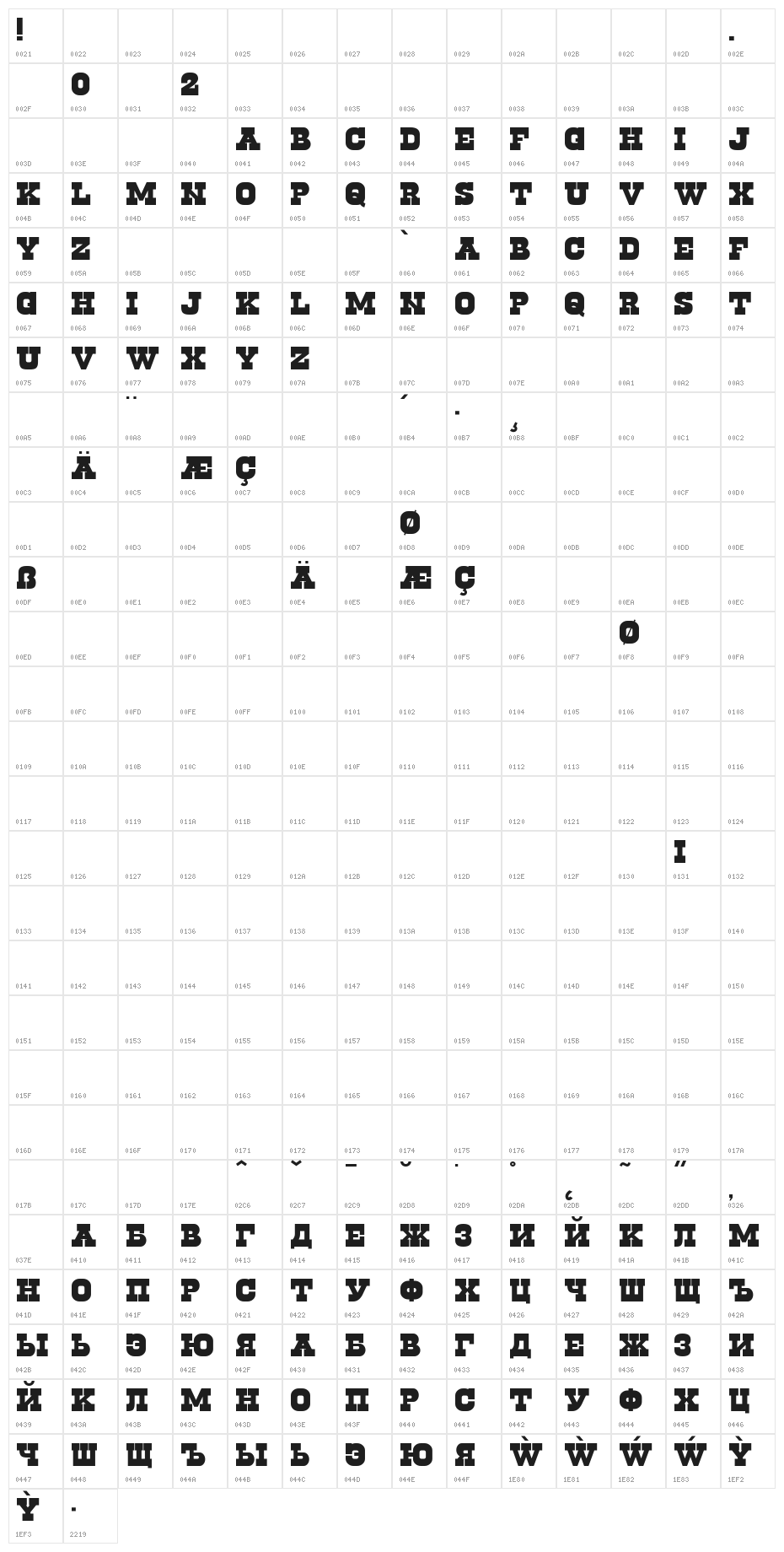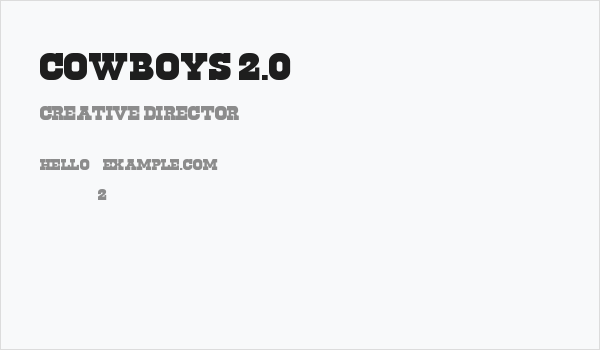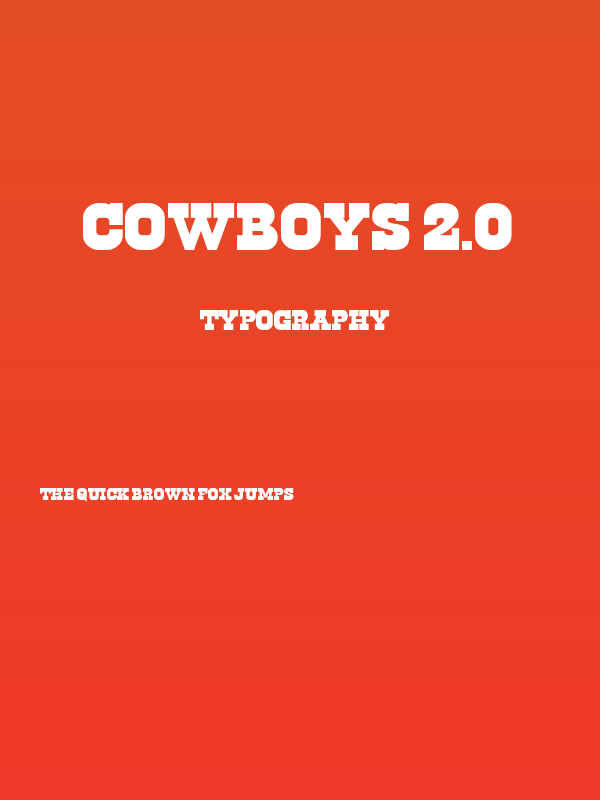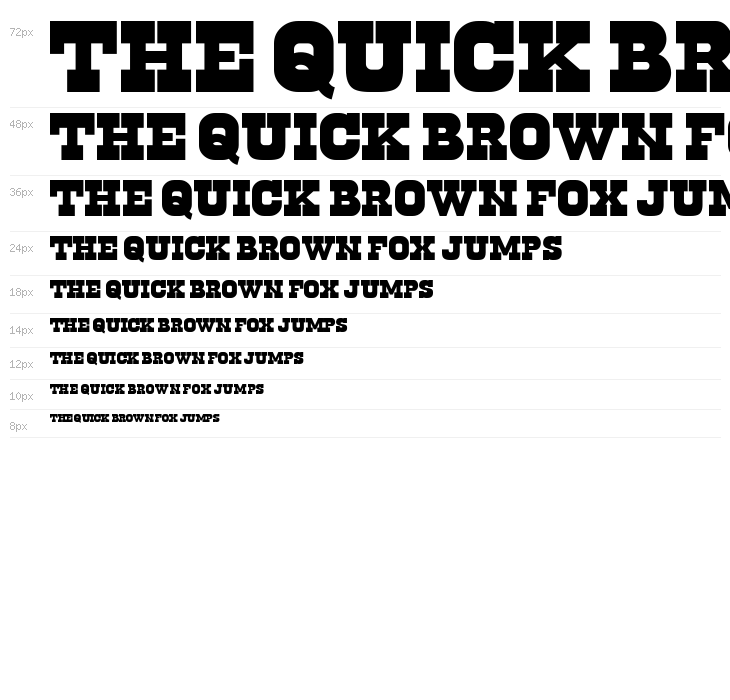
Cowboys 2.0 Font
Cowboys 2.0 Description
This bold and robust font features a strong, blocky design with thick strokes and a commanding presence. The uppercase letters are uniform in height, creating a cohesive and powerful look. The numbers and special characters maintain the same bold style, ensuring consistency across all elements. The font's design is reminiscent of classic Western or sports themes, making it ideal for projects that require a strong, impactful visual statement.
| Proposed Projects | Ideal for sports team branding, Western-themed posters, or any project needing a bold, impactful typeface. |